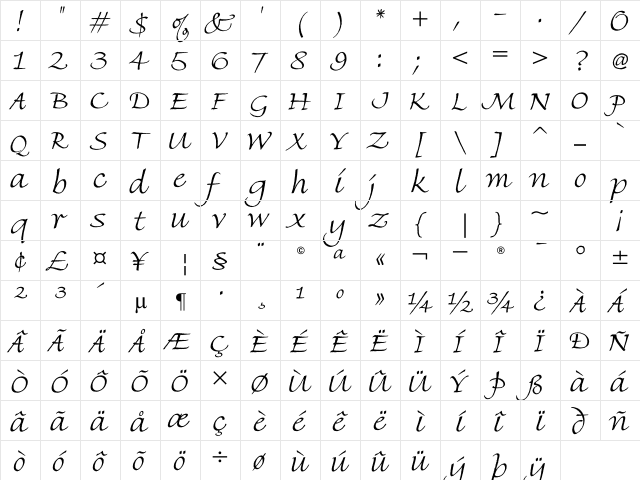
Fine Hand Regular
| Foundry | International Typeface Corporation |
| Designer | Richard Bradley |
Design Context for Fine Hand Typeface
Fine Hand flows with the natural rhythm of handwritten lettering, making it ideal for designs that call for warmth and personal expression.